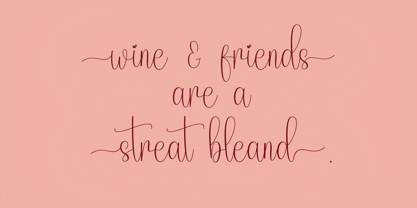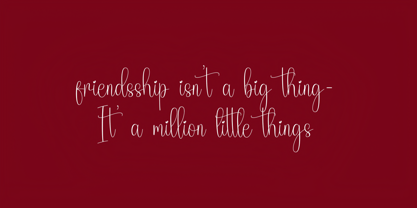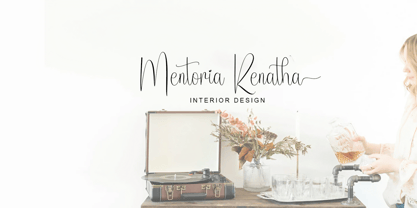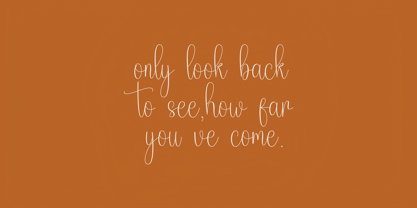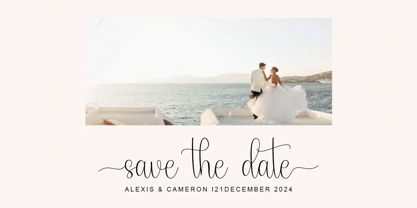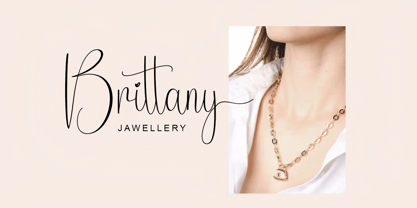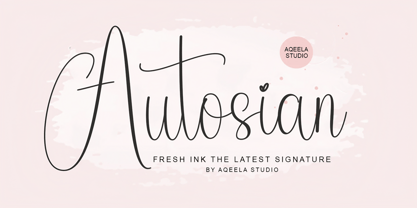
Autosian
by Aqeela Studio
The Autosian Font Family was designed by Muhammad Nasir and published by Aqeela Studio. Autosian contains 1 styles.
The Autosian Font latest signature combines sleek elegance with modern flair, featuring smooth, flowing lines and distinctive curves. Its dynamic character adds a touch of sophistication, making it perfect for branding, invitations, or any creative project that seeks to leave a lasting impression. Each letter exudes personality, harmonizing classic and contemporary styles for a unique typographic experience.
Designers: Muhammad Nasir
Publisher: Aqeela Studio
Foundry: Aqeela Studio
Design Owner: Aqeela Studio